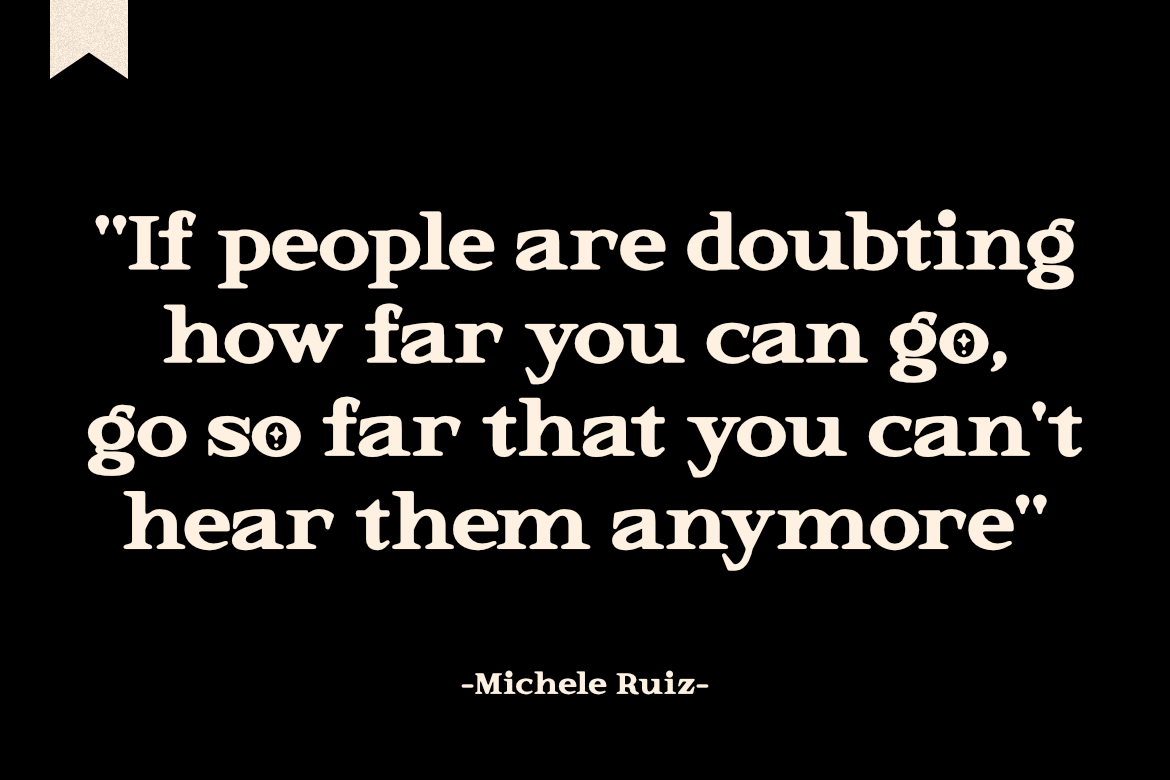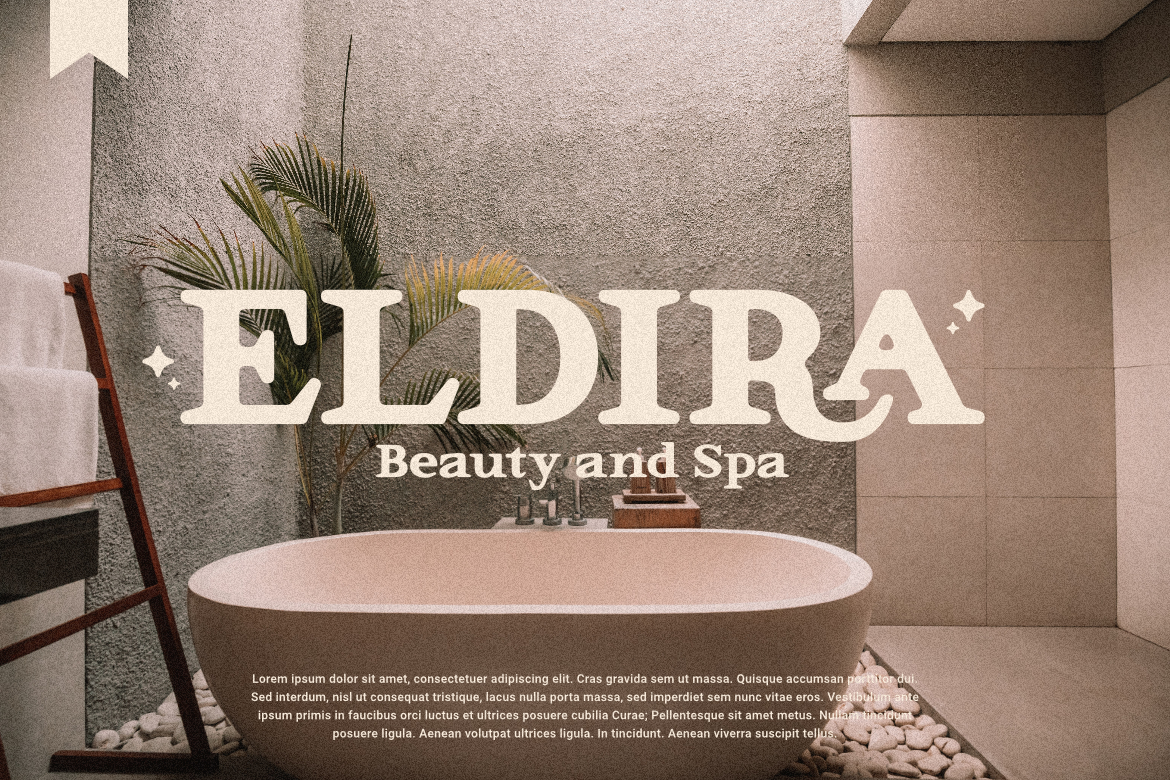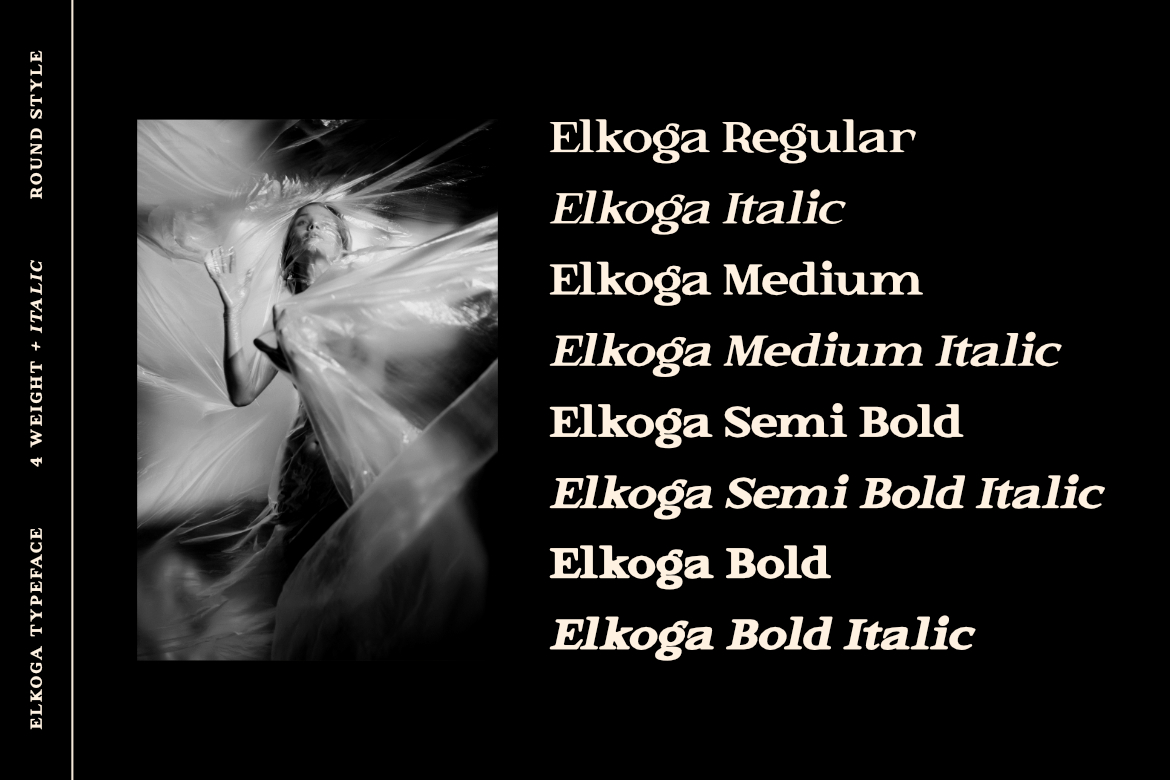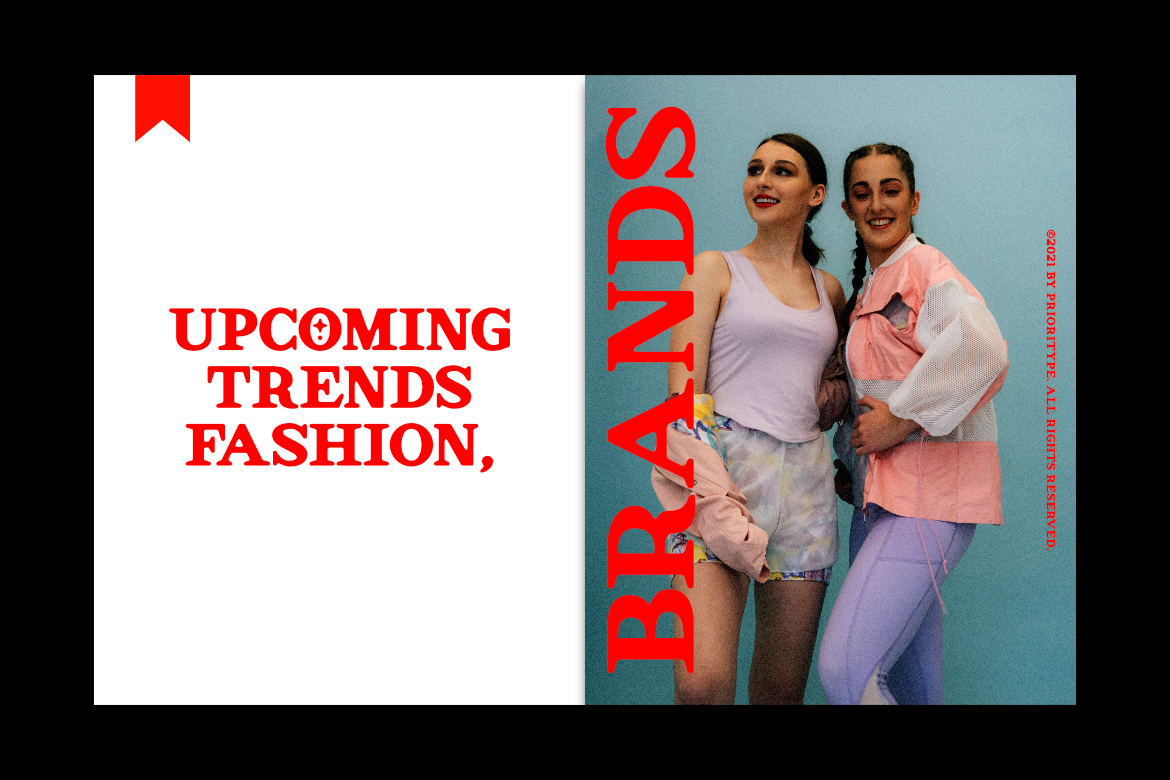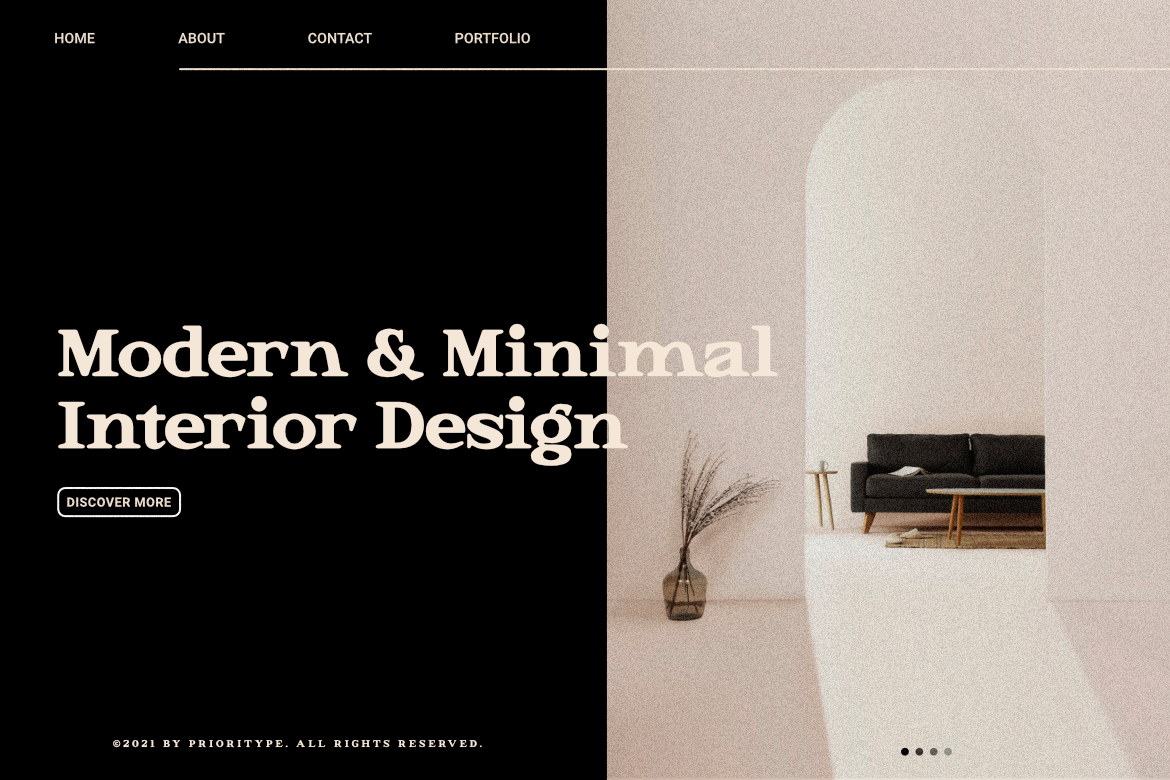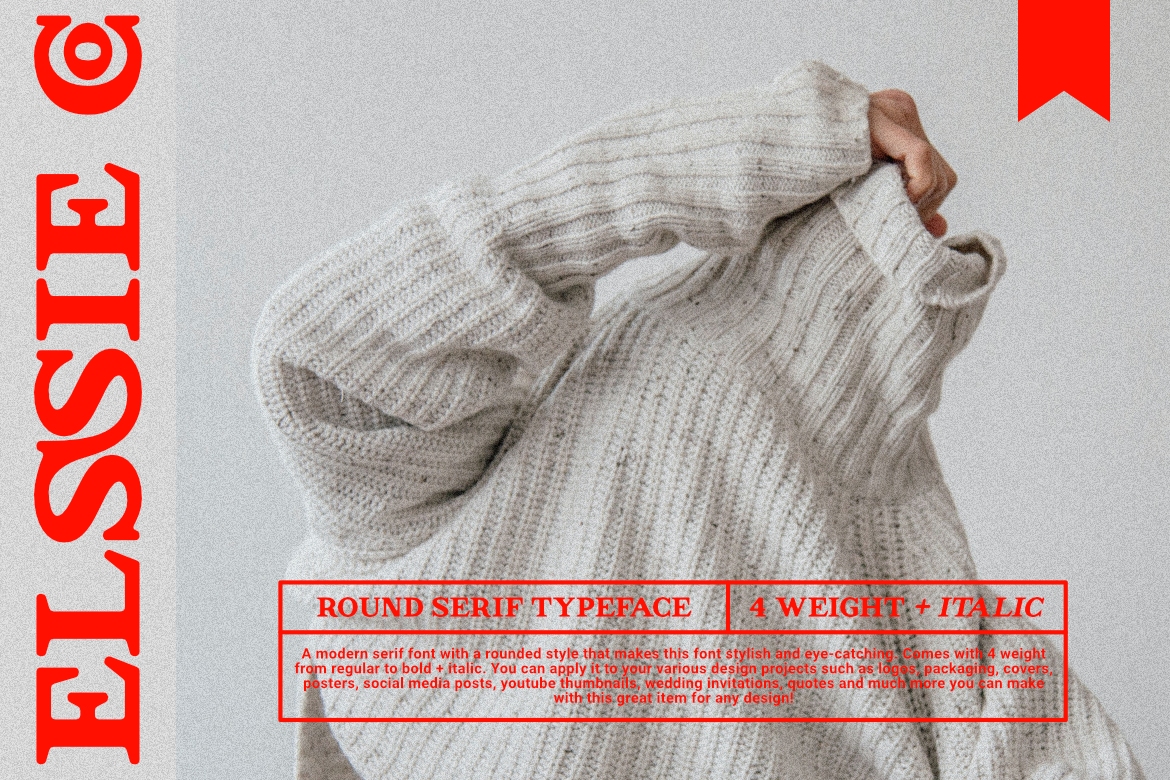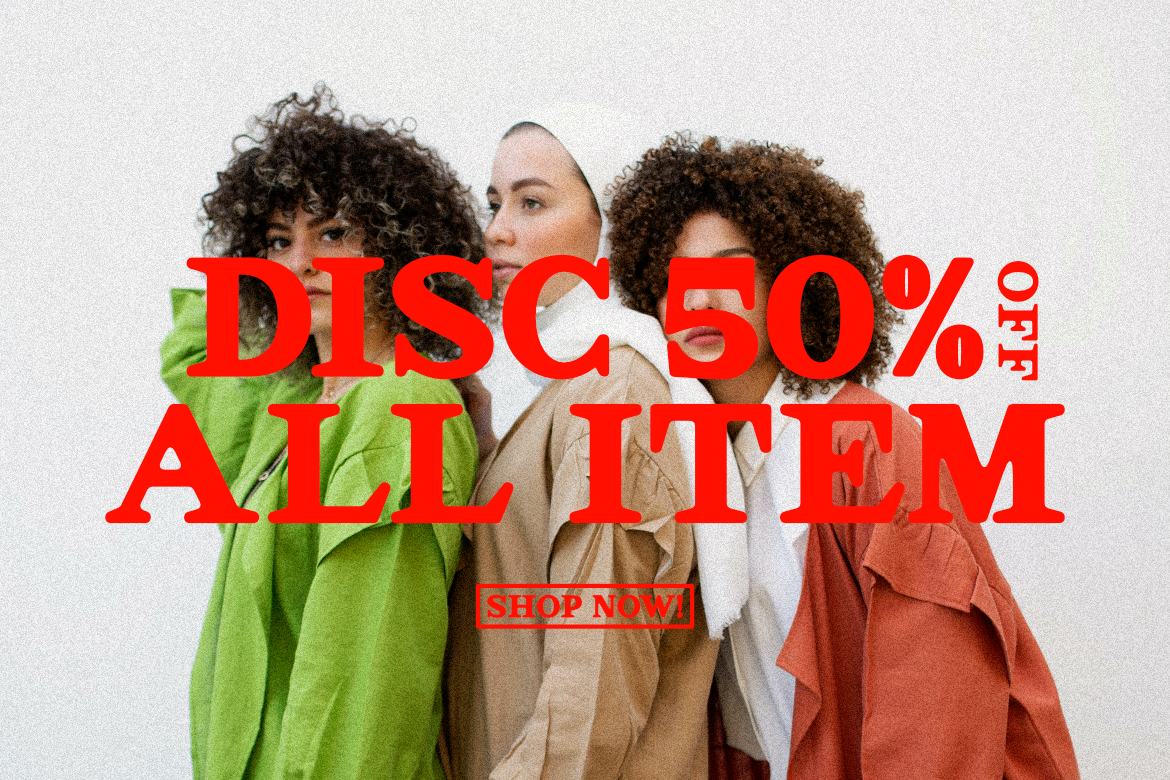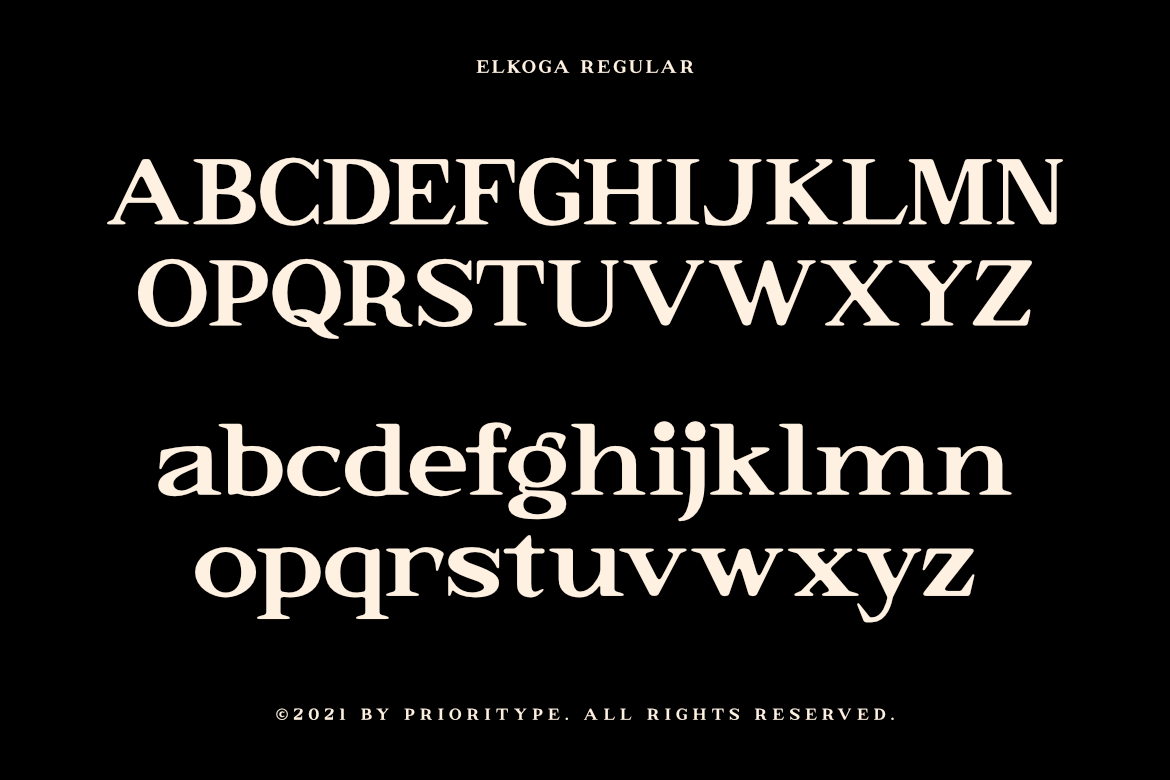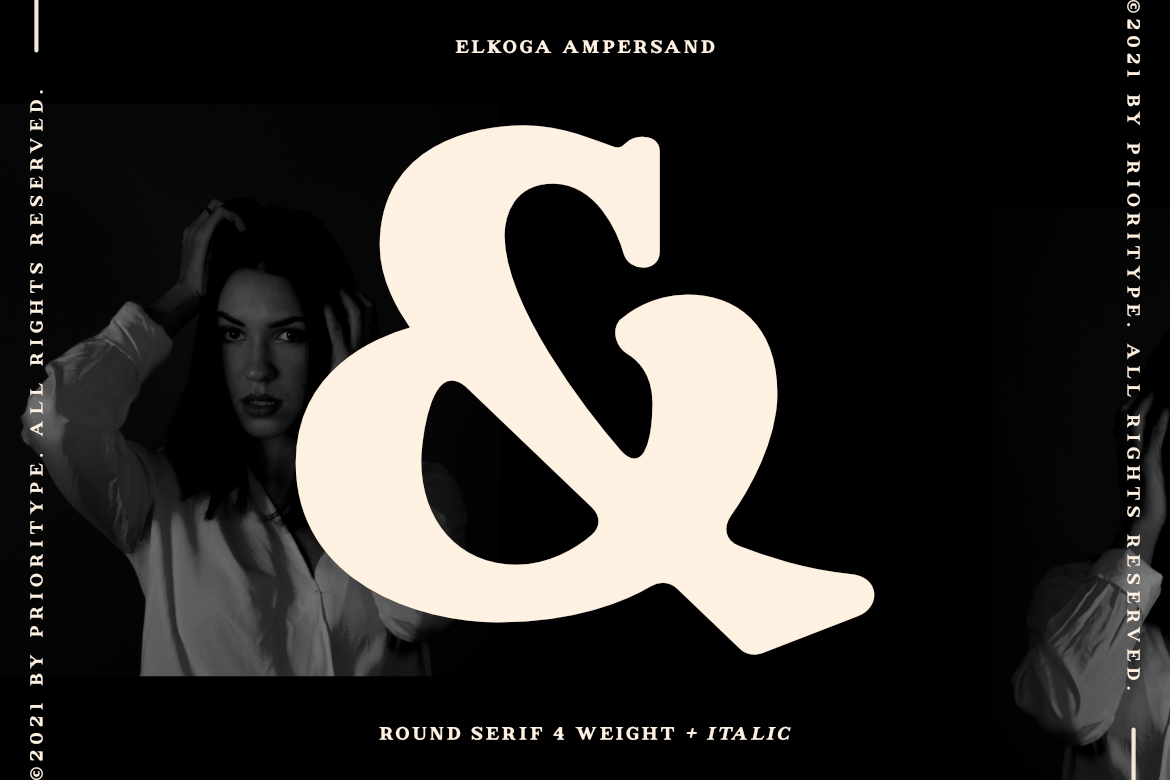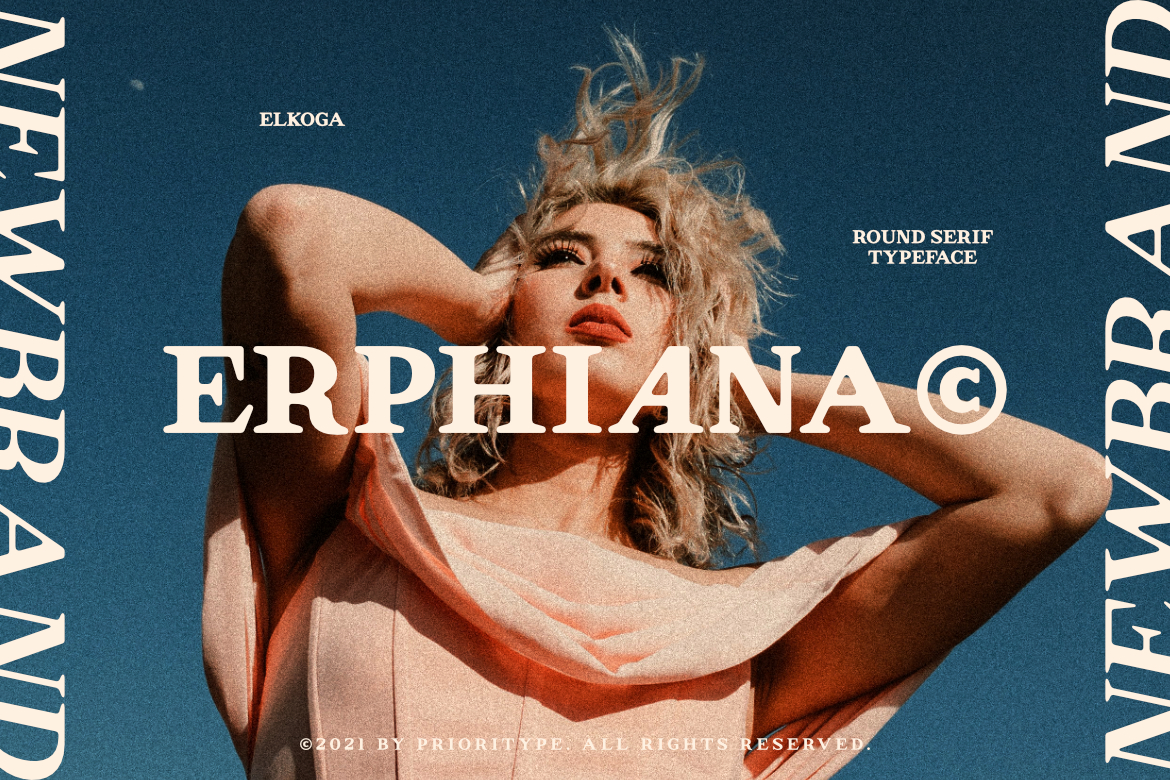
Elkoga – Round Serif Typeface
A modern serif font with a rounded style that makes this font stylish and eye-catching. Comes with 4 weight from regular to bold + italic. You can apply it to your various design projects such as logos, packaging, covers, posters, social media posts, youtube thumbnails, wedding invitations, quotes and much more you can make with this great item for any design!